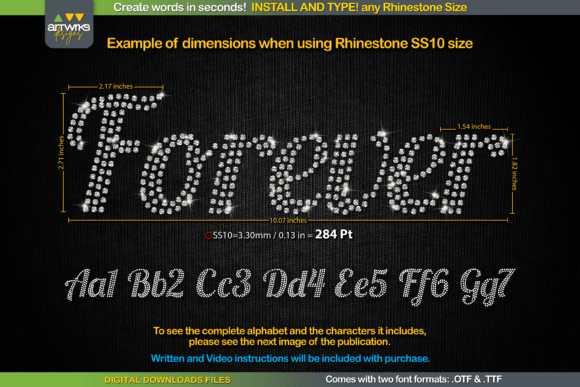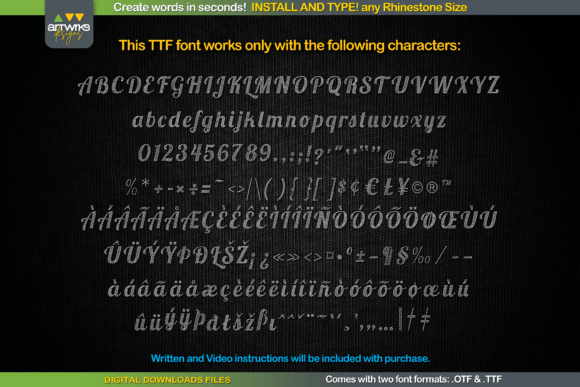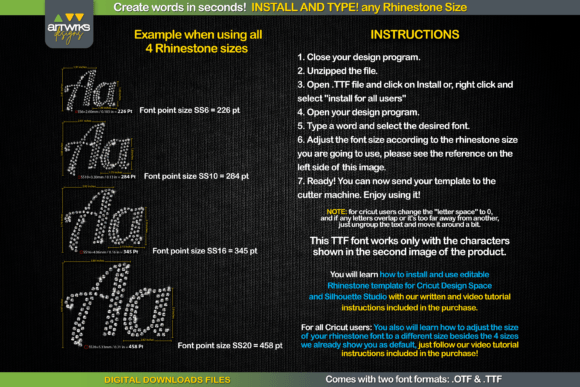
Forever Font
About the Forever Font
Get ready to be inspired by Forever Font, a fresh and dynamic typeface for modern creators. This is a very cool Forever script for Rhinestone template font that will let you create words in seconds! In addition, when you type, each letter is filled perfectly with rhinestones or arranged and trapped for heat transfer vinyl so you can conveniently customize your designs with text.
Forever Font’s bold, glamorous aesthetic makes it ideal for headlines, short impactful phrases in branding materials, and eye-catching packaging designs. It shines in applications where its decorative nature adds a touch of sparkle and luxury. Avoid using it for body text or lengthy paragraphs; its intricacy would hinder readability.
This font pairs well with clean sans-serif fonts like Open Sans or Montserrat for a balanced contrast, or with a classic serif like Garamond for a more refined feel. Geometric sans-serifs such as Futura would also create a modern, high-end pairing. The font’s inherent energy is best suited to brands focused on fashion, beauty, or celebratory events.
Consider using it sparingly to maximize its impact, letting its decorative quality serve as a highlight rather than a dominant element in the overall design.